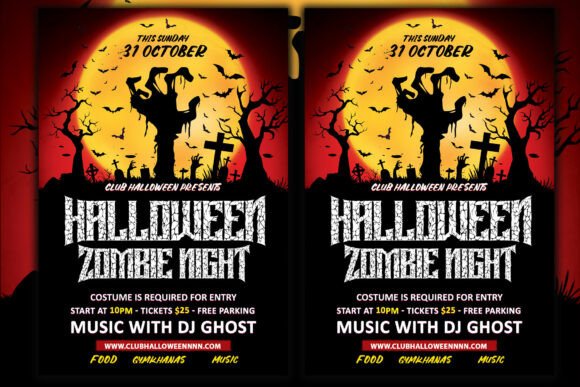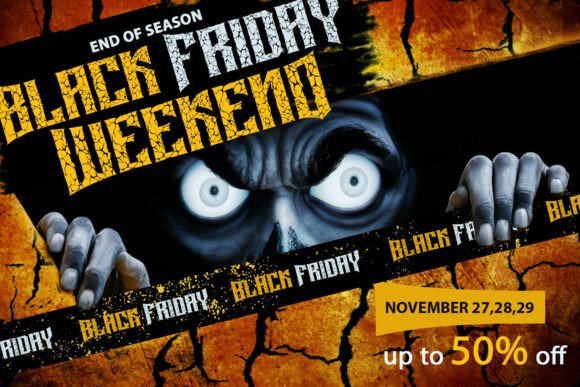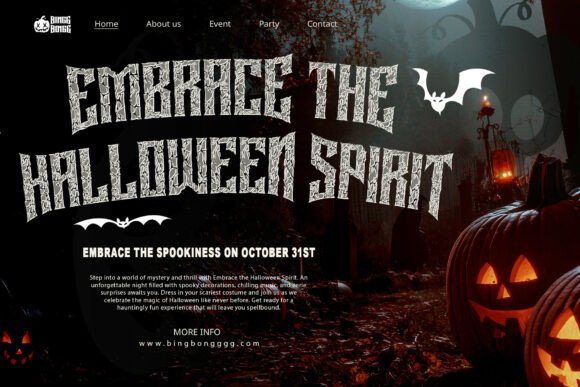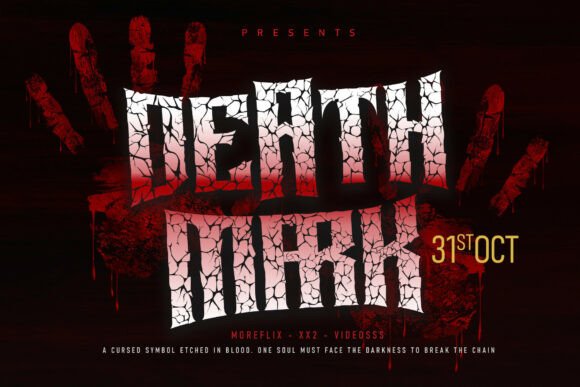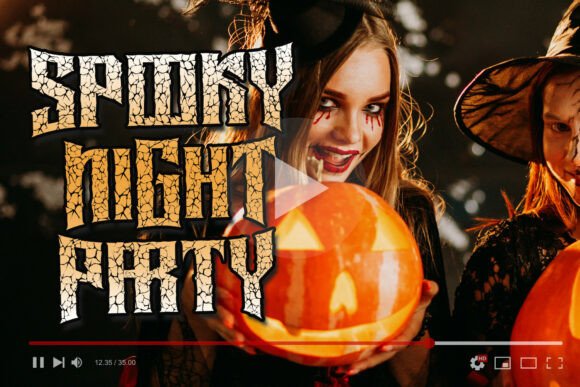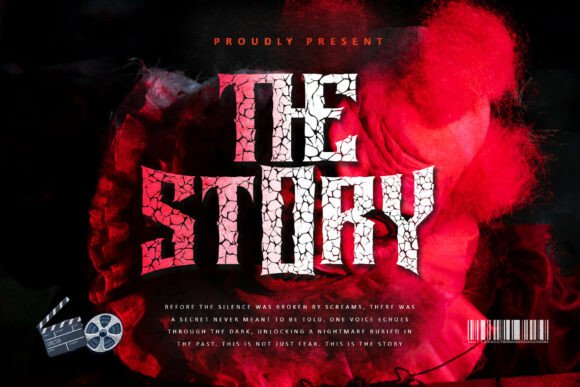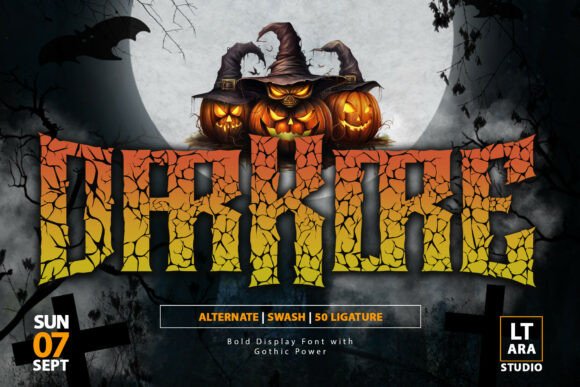
Unleash the Shadows: Introducing Darkore Font
In the realm of typography, few fonts evoke the essence of darkness and fearlessness as effectively as Darkore. This bold display font is meticulously crafted with gothic power and a distinctive cracked texture, making it an unparalleled choice for designers seeking to make a haunting statement. Darkore is not just a font; it’s an experience, a journey into the shadows where creativity knows no bounds.
The Essence of Darkore
Darkore is characterized by its sharp edges, dramatic forms, and an eerie atmosphere that it effortlessly commands. These features make it the perfect companion for projects that demand a bold and fearless presence. Whether you’re designing horror posters that need to capture the audience’s attention, planning a Halloween event that stands out from the crowd, creating a logo for a metal band that embodies their powerful music, or working on any design that requires a statement of strength and mystery, Darkore is the ultimate tool at your disposal.
Creative Freedom with Darkore
What sets Darkore apart from other fonts is not just its striking appearance but also its versatility and the creative control it offers. Packed with a wide range of features, Darkore includes:
- Alternates: Offering you various versions of each letter, allowing for diverse design possibilities.
- Swashes: Elegant flourishes that can be added to your text for an extra touch of drama and elegance.
- Ligatures: Special character combinations that create a more harmonious and flowing text.
- Multilingual Support: Enabling you to create designs that cater to a global audience, breaking language barriers.
These features empower designers to experiment with different styles and expressions, ensuring that their final product is not only visually stunning but also uniquely tailored to their vision.
Crafting Haunting Works of Art
Darkore is more than just a font; it’s a creative partner that invites you to step into the shadows and unleash your imagination. With Darkore, the possibilities are endless. Imagine crafting a Halloween poster that seems to leap off the page with its eerie realism, or designing a metal band logo that perfectly encapsulates the intensity and passion of their music. The cracked texture and gothic undertones of Darkore add a layer of depth and complexity to your designs, transforming them into haunting works of art that linger in the viewer’s mind.
Why Choose Darkore?
In a world where design plays a crucial role in communication and expression, choosing the right font can make all the difference. Darkore offers a unique blend of gothic power, creative versatility, and attention-grabbing style that sets it apart from other display fonts. Here are a few reasons why Darkore should be your go-to font for bold projects:
- Unique Aesthetic: Darkore’s distinctive cracked texture and gothic influence provide a look that’s hard to replicate with other fonts.
- Highly Versatile: With its extensive feature set, Darkore can be adapted to a wide range of design needs and personal styles.
- Attention-Grabbing: In a sea of generic designs, Darkore helps your project stand out with its dramatic and fearless appearance.
Darkore is not just a font; it’s a statement, a declaration of boldness and creativity. With its gothic power, cracked texture, and extensive feature set, it provides designers with the tools to create designs that command attention and evoke emotion. Whether you’re a professional designer looking for a font that can elevate your work or a crafting enthusiast seeking to add a touch of darkness to your projects, Darkore is the perfect choice. Step into the shadows, unleash your creativity, and let Darkore guide you in creating haunting works of art that leave a lasting impression.